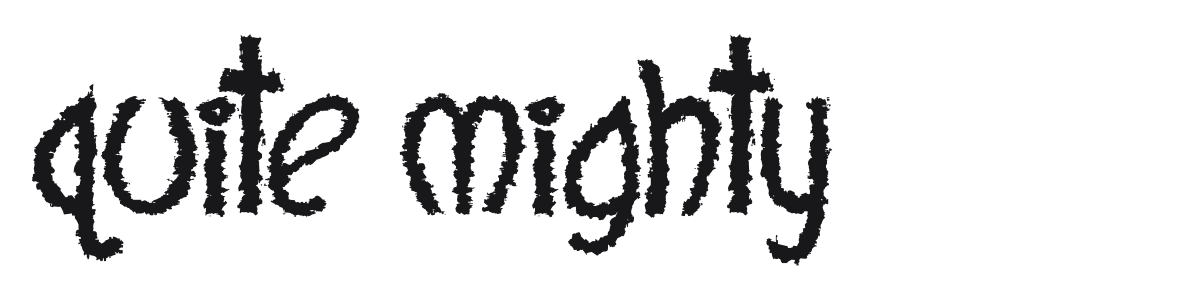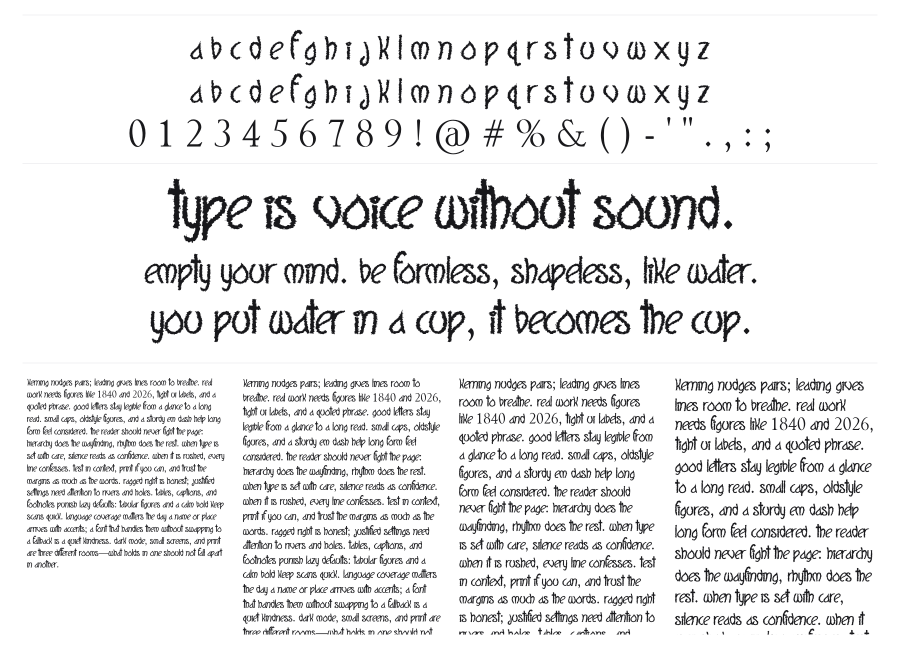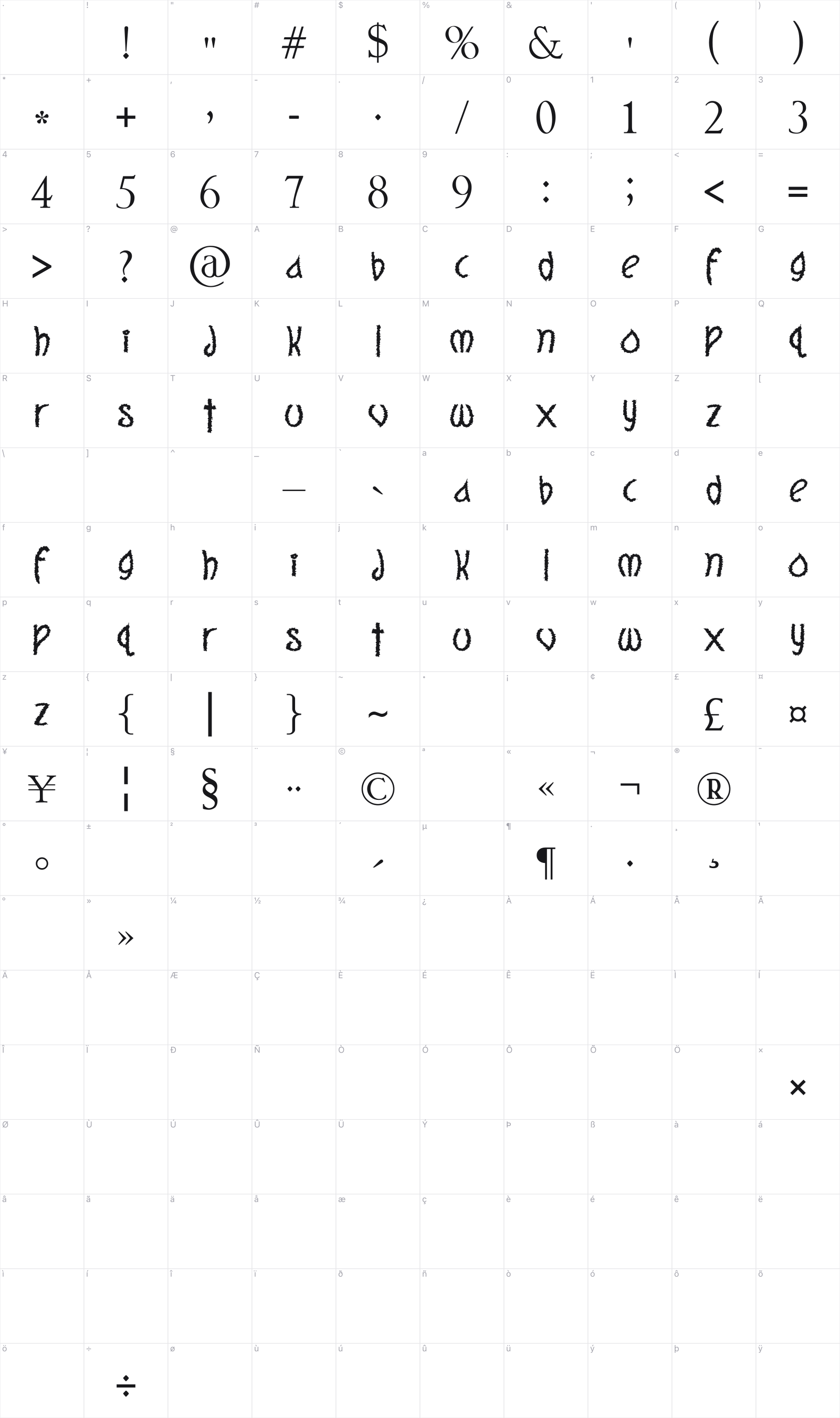
Quite Mighty
Quite Mighty is a heavy distressed display font with rough, eroded edges drawn from tattoo art and gothic lettering traditions. Each character has a scraped, inked texture that feels handmade and raw rather than digitally polished. It carries strong associations with underground music, horror, and tattoo culture.